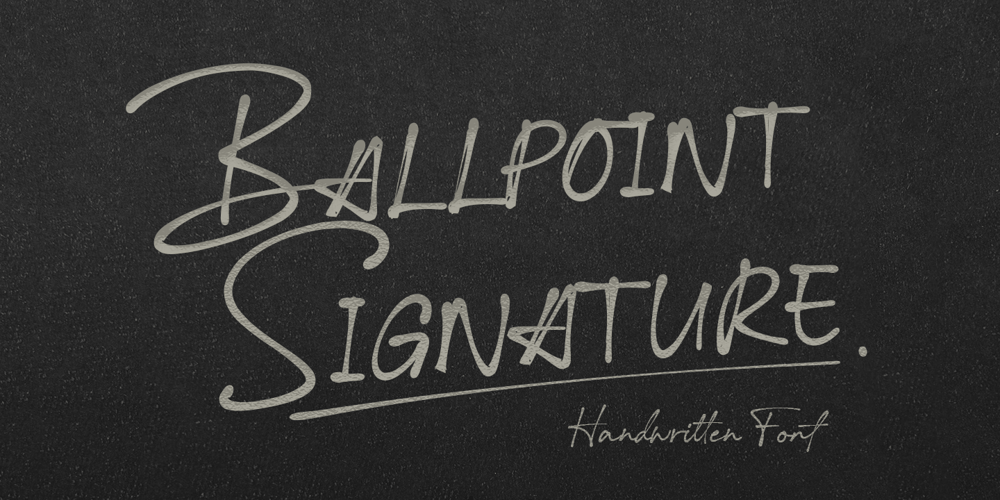
Ballpoint Signature Font Family was designed by Agam Rahmadan and published by Viswell. Ballpoint Signature contains 1 styles and family package options. Ballpoint Signature is made with natural hand-drawn inspired by beautiful handwriting, and includes alternates.